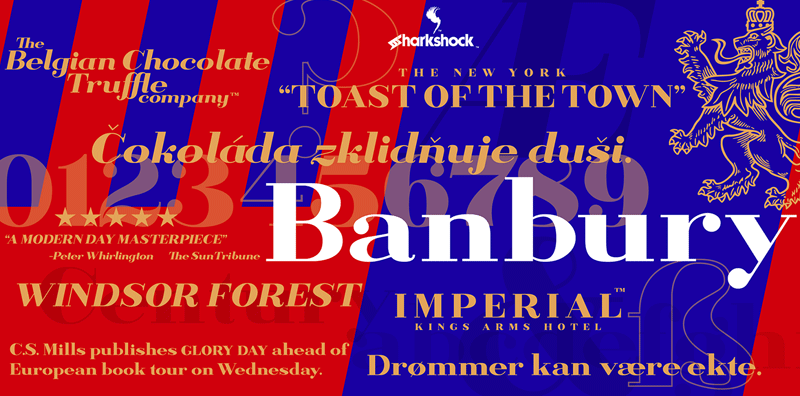
OTF: Banbury (Regular and Italic) Dennis Ludlow 2017 all rights reserved by Sharkshock dennis@sharkshock.net Thanks for taking a look! Banbury is a Neo Classical display font inspired by traditional English bold typefaces. The thick line weights paired with hairline serifs create contrast for an elegant and dynamic look. Use Banbury for a luxury logo, publishing, or movie poster. Basic/extended latin, punctuation, European accents, diacritics, ligatures, 80% small caps, kerning, and Italic are included in the full versions. The demo version contains basic latin, numbers, and very limited kerning. The complete versions are available by $25 donation or purchase of a commercial license. Please visit www.sharkshock.net/license for more information on this. This $25 is for personal use only and does NOT constitute a commercial license. All of my fonts may be distributed for free so long as the readme file stays intact. Thank you for your support! visit www.sharkshock.net for more and take a bite out of BORING design! tags: display, font, typeface, publishing, logo, title, book, diacritics, French, Polish, Sharkshock, German, Portuguese, European, serif, neo-classical, weight, body, England, London, British, Europe, latin, ligatures, kerning, art, classic, classical |